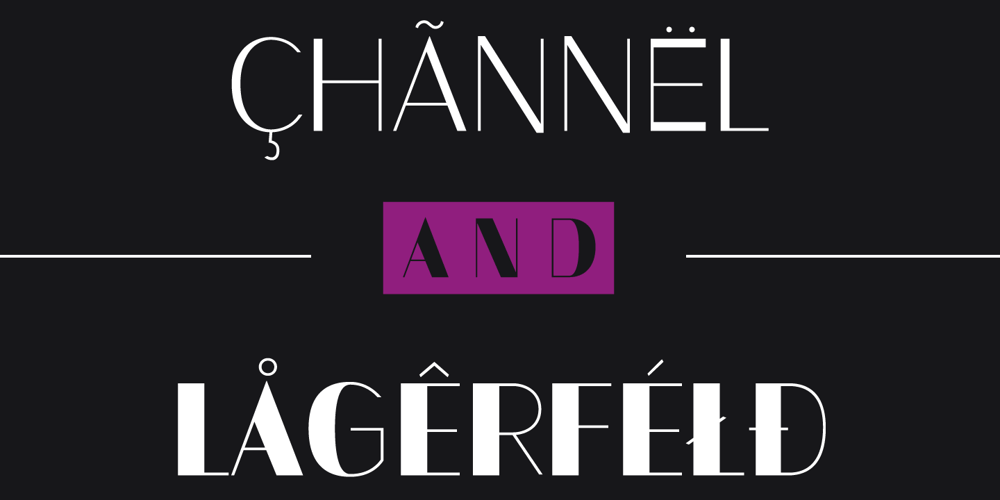
Contrast Sans
Contrast Sans font
Contrast Sans Font Family was designed by Manuel Viergutz and published by TypoGraphicDesign. Contrast Sans contains 19 styles and family package options. The Sans Serif typeface Contrast SANS with 2 variable axes is designed from 2024 for the font foundry Typo Graphic Design by Manuel Viergutz.18 font-styles (Thin to Thin, Thin, Light, Regular, Medium, SemiBold, Bold, ExtraBold, Thin to Black, Black to ExtraBold, Black to SemiBold, Black to Medium, Black to Regular, Black to Light, Black to ExtraLight, Black to Thin) with 220+ glyphs (Adobe Latin 2) incl. decorative extras like icons, arrows, catch words, dingbats, emojis, symbols, geometric shapes (type the word #LOVE for ❤ or #SMILE for ☺ as OpenType-Feature dlig) and stylistic alternates (2 stylistic sets).For use in logos, magazines, posters, advertisement plus as webfont for decorative headlines. The font works best for display size.Font Spe­ci­fi­ca­ti­ons■ Font Name: Contrast Sans■ Font Styles: 18 font-styles (Thin to Thin, Thin, Light, Regular, Medium, SemiBold, Bold, ExtraBold, Thin to Black, Black to ExtraBold, Black to SemiBold, Black to Medium, Black to Regular, Black to Light, Black to ExtraLight, Black to Thin)■ Font Cate­gory: Variable Sans Serif for head­line size■ Font For­mat: (Mac + Win, for Print) + (for Web)■ Glyph Set: 234 glyphs (incl. decorative extras)■ Lan­guage Sup­port (67 languages): Afrikaans Albanian Asu Basque Bemba Bena Breton Catalan Chiga Cornish Danish Dutch English Estonian Faroese Filipino Finnish French Friulian Galician German Gusii Indonesian Irish Italian Kabuverdianu Kalenjin Kinyarwanda Luo Luxembourgish Luyia Machame Makhuwa-Meetto Makonde Malagasy Manx Morisyen North Ndebele Norwegian Bokmål Norwegian Nynorsk Nyankole Oromo Portuguese Quechua Romansh Rombo Rundi Rwa Samburu Sango Sangu Scottish Gaelic Sena Shambala Shona Soga Somali Spanish Swahili Swedish Swiss German Taita Teso Uzbek (Latin) Volapük Vunjo Zulu■ OpenType features (7): aalt dlig ordn ss01 ss02 sups kern■ Specials: Capital Letter Sharp S (German Versal Eszett U+1E9E) ẞ, Catchwords like AND, Emojis like Smiley ☺ ☻, Symbols like Heart ♥︎, Variable Sans Serif Font with 2 axes (Width, Weight)■ Design Date: 2024